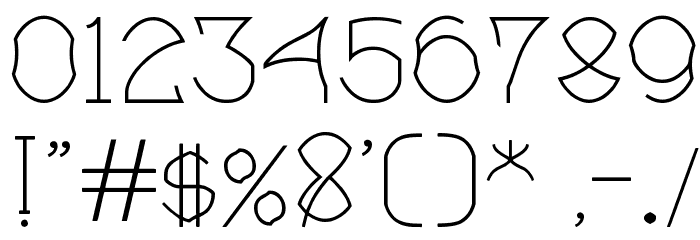
Bloem blaadjes Font
This font features a unique, decorative style with an organic and playful appearance. The characters are constructed with a combination of straight lines and subtle curves, creating a whimsical and artistic look. The uppercase letters have a distinct geometric form, while the lowercase letters maintain a consistent flow, enhancing readability. Numbers and special characters follow the same design principles, ensuring a cohesive visual experience. The font's overall aesthetic is reminiscent of hand-drawn or nature-inspired designs, making it suitable for creative and artistic projects.
A decorative, playful font with geometric and organic elements.
- Font: Bloem blaadjes
by Fontabenka - Weight: Regular
- Proposed Projects: Ideal for creative projects such as children's books, artistic posters, and branding for eco-friendly products.
- Overall Style: Decorative